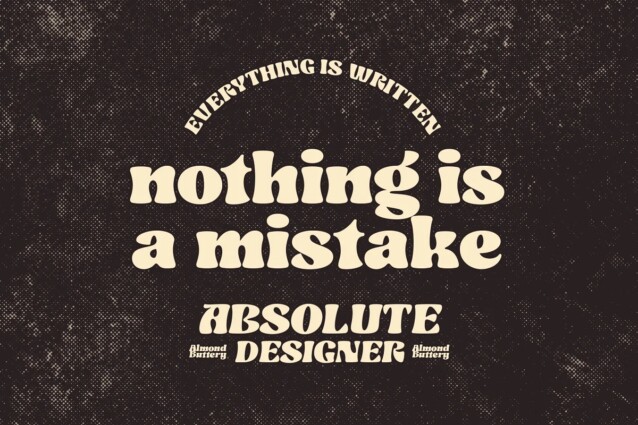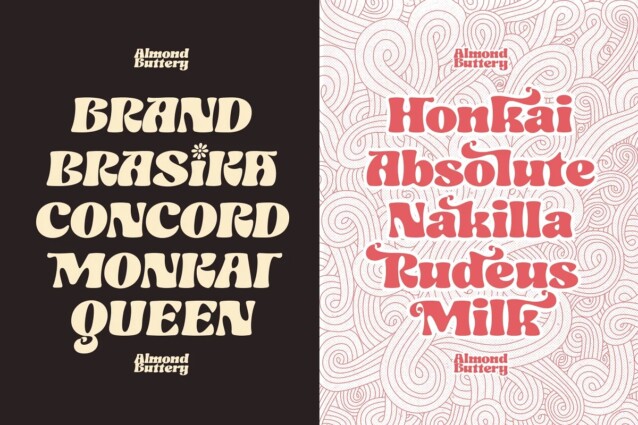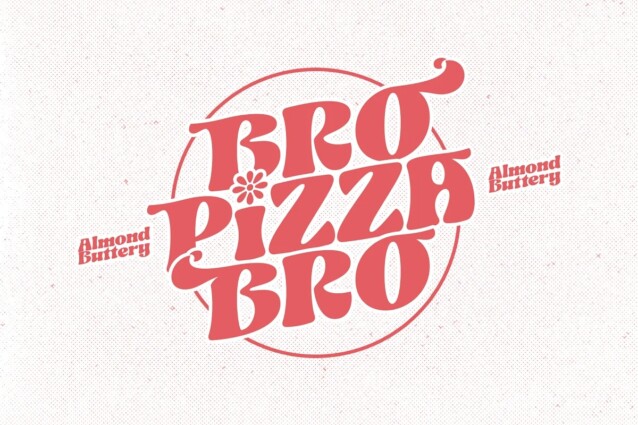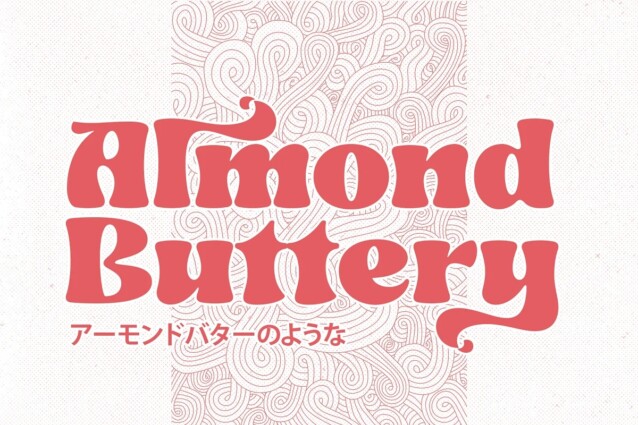
Almond Buttery Font is a retro typeface that effortlessly fuses geometric simplicity with the vibrant pop culture styles of the swinging 60s and 70s. With its curvaceous letterforms and an array of stylistic alternates, “Almond Buttery” is a versatile typeface that’s ready to add character and charm to your projects.